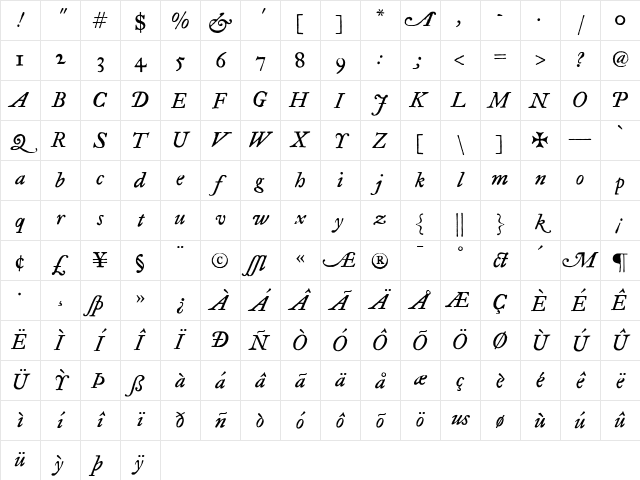
Historical Medium Italic
Design Context for Historical
Historical is a composed and adaptable typeface that performs quietly and consistently across a wide range of design contexts. The slanted form adds forward momentum and visual energy.